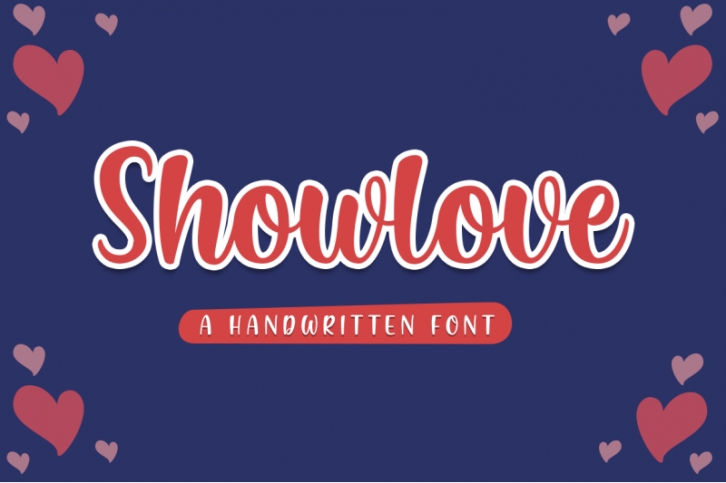
Fresh Love is lovely and funny handwritten font. This font includes full of Alphabetical glyphs, Numerals, and punctuation. This is so perfect for invitations, branding, crafting or logotype.